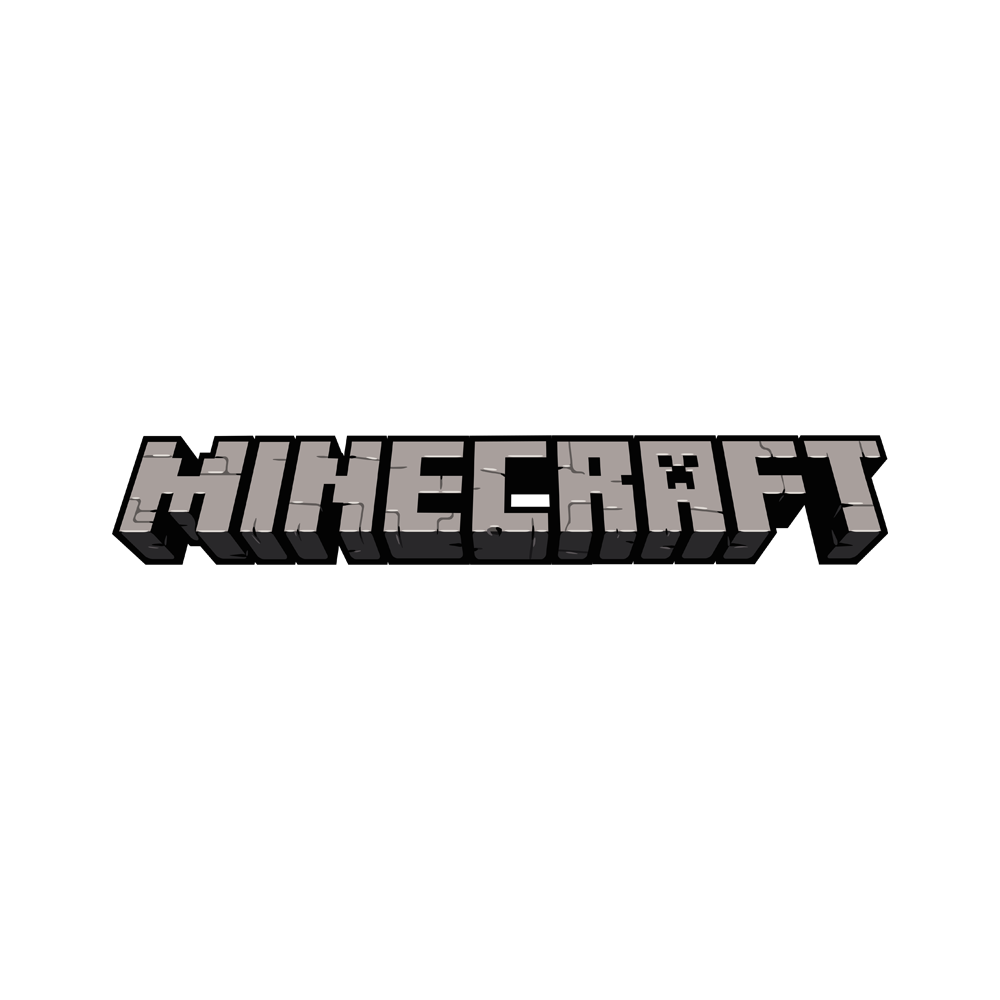
Minecraft Font
Fonts in UseMinecraft is a popular sandbox video game that allows players to build and explore virtual worlds made up of blocks. The game offers a variety of gameplay modes and has gained a large following due to its creative potential and open-ended gameplay.
The latest version of the Minecraft logo was custom designed but a replica called Mine Crafter by MadPixel is available free to download. The older Minecraft logo used a font very similar to Minecraftia by Andrew Tyler.